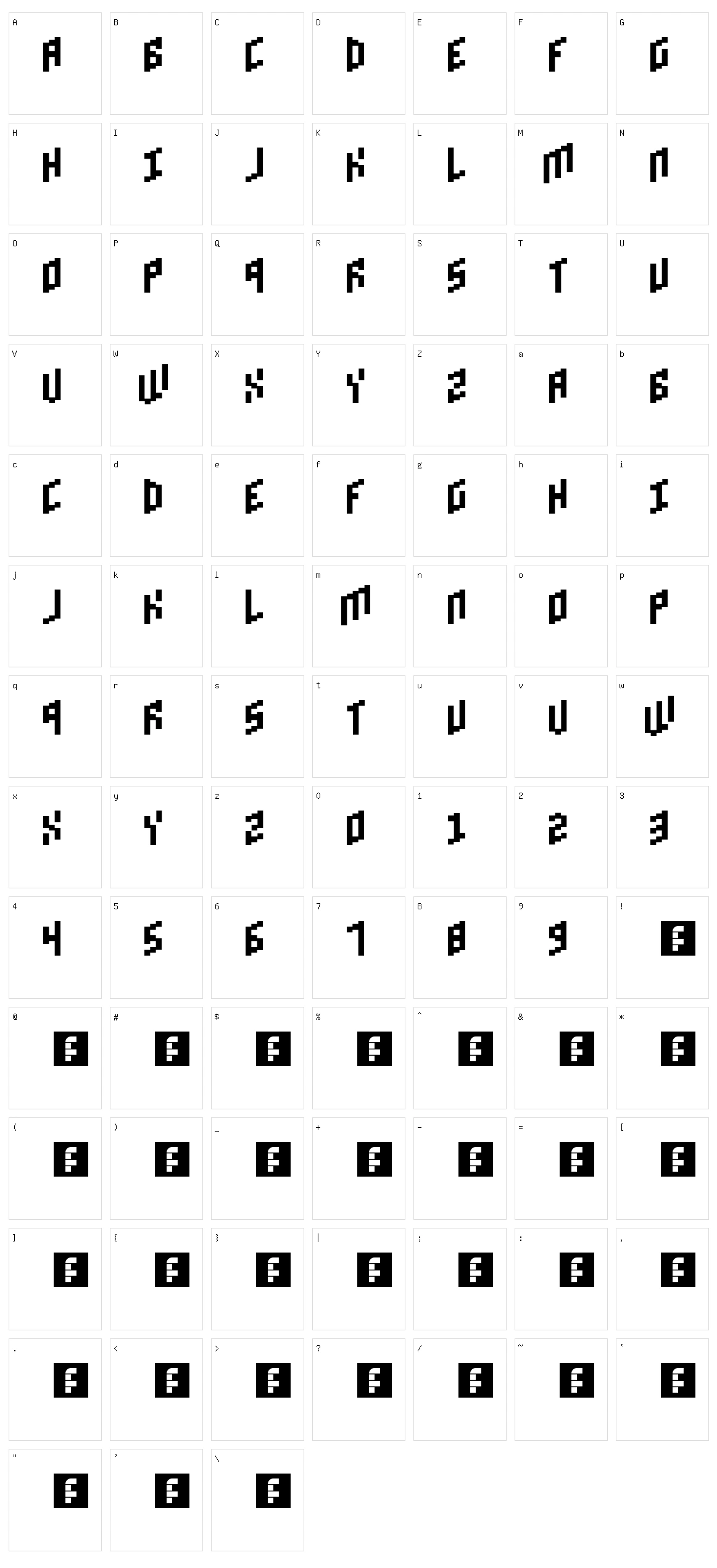
The free font Brick Bold is carefully designed by Gerrit-Jan Riemersma, showcasing a thoughtful balance of creativity and usability and falls under the Square font style. When you download the ZIP file, it contains only 3.01 KB of font files, making it lightweight and quick to download. Please review the license details below to understand permitted usage and distribution rights. If license information is not available, we recommend using this font for personal projects only or contacting the author directly for commercial usage permissions.